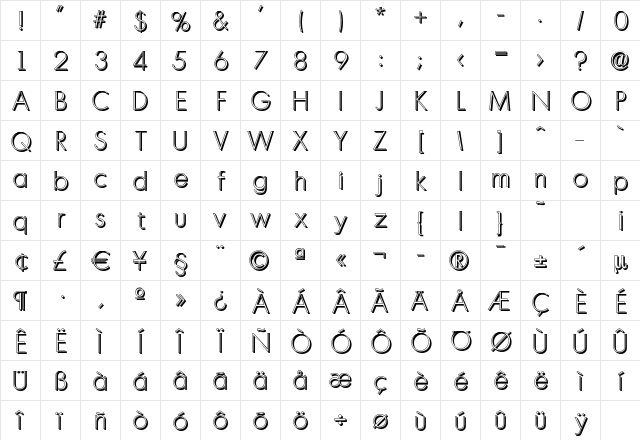
MontrealDropShadow-ExtraLight Regular
Design Context for MontrealDropShadow-ExtraLight
MontrealDropShadow-ExtraLight is built around its visual character rather than neutral utility - its distinctive forms are designed to make an impression at display sizes. Its slender proportions lend an understated elegance to any composition.
Font Pairing: Pair with a clean neutral sans-serif for body copy to let MontrealDropShadow-ExtraLight's character lead without overwhelming the composition.
Pro Tip: Use MontrealDropShadow-ExtraLight exclusively at display sizes - it was designed to be seen, not read at length. Let a neutral companion handle body copy.